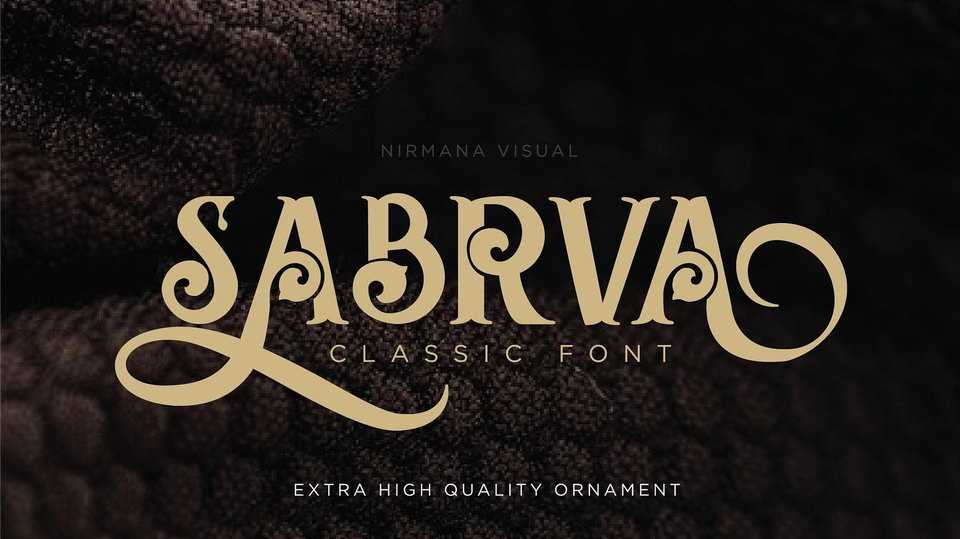
Download Sabrva font, a decorative vintage typeface designed to work as perfect companions or simply as strong standalone typefaces. Give your typography design with a touch of Classic style.